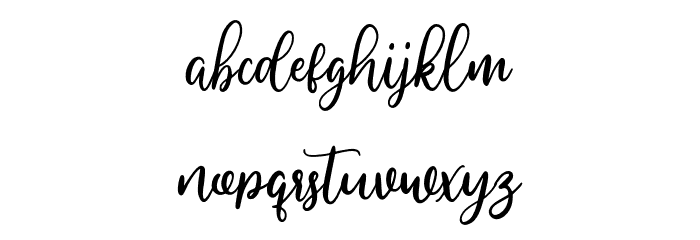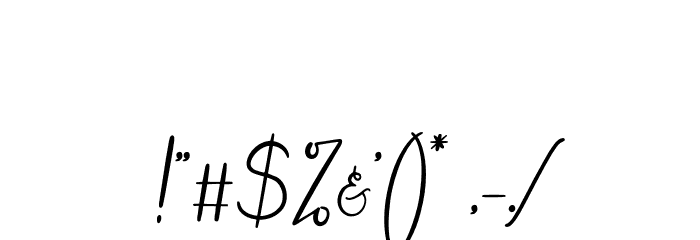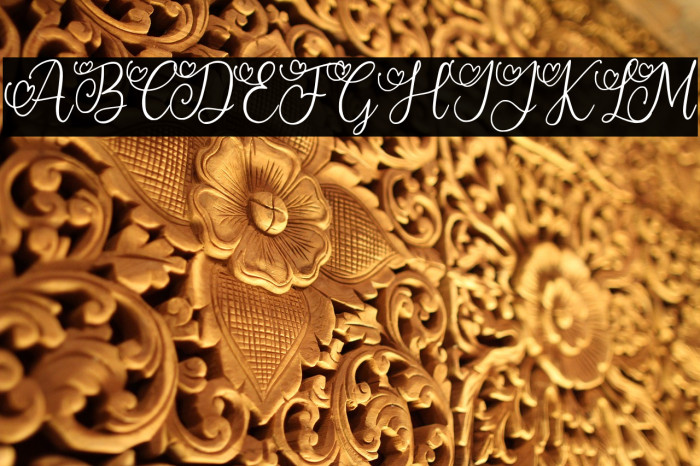
MyLovely Font
This font features an elegant and whimsical script style, characterized by flowing, interconnected letters. The uppercase letters are adorned with heart motifs, adding a playful and romantic touch. The lowercase letters maintain a smooth, cursive flow, enhancing the font's overall charm. The numerals and special characters are consistent with the script style, ensuring a cohesive look. This font is ideal for projects that require a personal, heartfelt aesthetic, such as wedding invitations, greeting cards, or branding for lifestyle products.
A whimsical script font with heart motifs and flowing cursive style.
- Proposed Projects: Perfect for wedding invitations, greeting cards, and romantic branding.
- Category: Script
- Use Case: Logos, Invitations, Greeting Cards